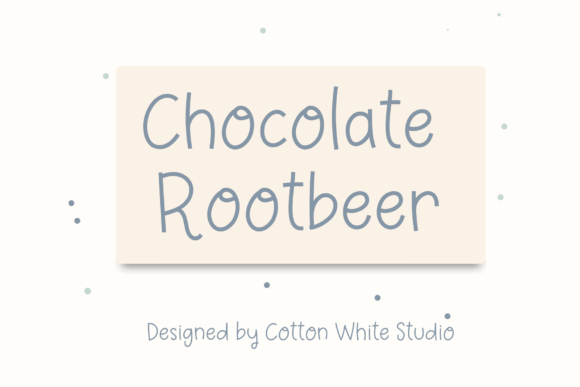
Journey into the world of whimsical creativity with Chocolate Rootbeer Font, a script font family that captures the playful spirit of handwritten notes, inviting you to embark on an artistic adventure.
This enchanting font, crafted by the skilled hands of Cotton White Studio, is a perfect harmony of classic charm and modern elegance. Its flowing curves and playful ligatures dance across the page, evoking the warmth of a handwritten letter and adding a touch of personal flair to your digital creations.
With Chocolate Rootbeer Font, you'll discover a font that's as versatile as your imagination. Dive into the world of digital planning and journaling, where your notes, appointments, and memories come alive with a unique, hand-crafted charm. Create stunning invitations that reflect your personal style, transforming ordinary events into extraordinary occasions. Capture your thoughts and ideas with a touch of whimsy, turning note-taking into an artistic endeavor.
Whether you're a seasoned designer or just starting your creative journey, Chocolate Rootbeer Font is the perfect companion. Its user-friendly nature makes it accessible to designers of all levels, while its vast range of applications ensures that your creativity knows no bounds.
So, embrace the magic of Chocolate Rootbeer Font and let your imagination run wild. Add a touch of whimsy to your digital planner, journal, invitations, and note-taking, or elevate your projects in Cricut, Adobe Illustrator, Photoshop, Canva Pro, Silhouette, Procreate, Affinity, Notability, GoodNotes, and more!
Let Chocolate Rootbeer Font be your artistic muse, inspiring you to create stunning designs that capture the essence of joy, creativity, and personal expression.